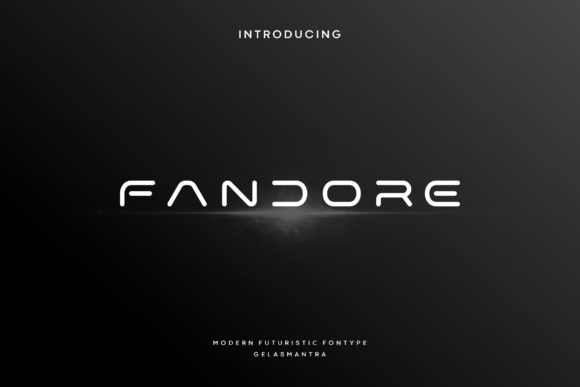
Welcome to the realm of Fandore, a font family that transcends the ordinary, propelling you into a world of boundless creativity. Fandore is more than just a font; it's a gateway to a futuristic dimension, where imagination reigns supreme.
Conceived by the visionary minds at garismantra, Fandore draws inspiration from the sleek lines and captivating aesthetics of technology. Its letterforms are a symphony of sharp angles and flowing curves, echoing the dynamism of our ever-evolving digital landscapes.
Whether you're a seasoned designer or just starting your creative journey, Fandore is your perfect companion. Its versatile nature makes it a font for all seasons, effortlessly adapting to a myriad of projects.
Unleash your inner artist and let Fandore ignite your designs with its futuristic charm. Create logos that exude an air of innovation, design posters that transport viewers to distant worlds, or craft book covers that hint at untold tales of the future.
Fandore is not just a collection of letters; it's a gateway to a world where boundless creativity and imagination collide. Dare to embrace the future and let Fandore be your guide.